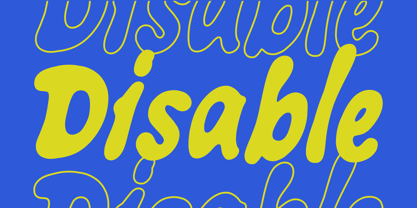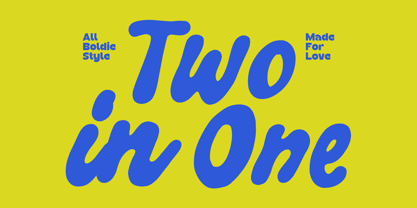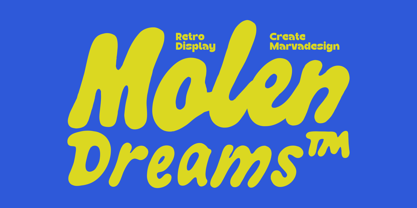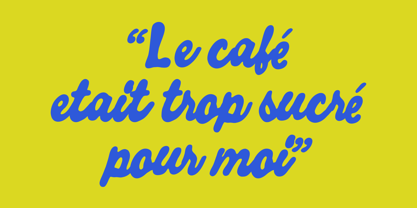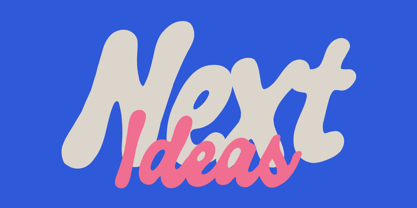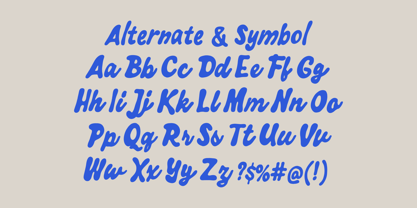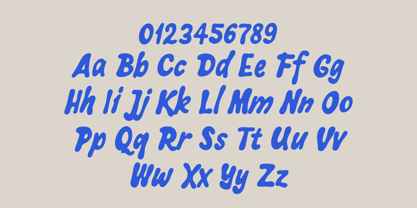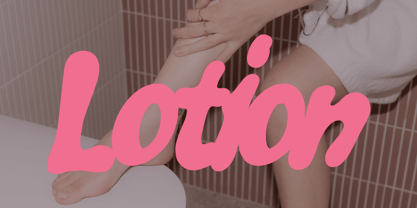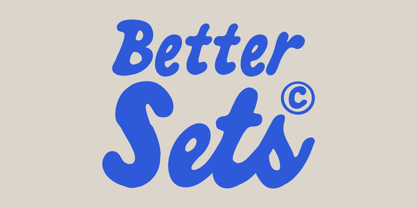
Molen Dream
von Marvadesign
Die Schriftfamilie Molen Dream wurde von Febrie Setiawan entworfen und von Marvadesign veröffentlicht. Molen Dream enthält 1 Stile. Mehr über diese Familie
Molen Dream presents a bold, retro-inspired display typeface with a fun and playful character. Its features include smooth, rounded edges and exaggerated curves, making it highly expressive and suitable for eye-catching design work. Molen Dreams is a typeface that blends vintage flair with modern spirit, particularly with its soft lettering and bubbly shapes. The letterforms are bold and friendly, reminiscent of 70s pop culture and signage.
This font stands out for its versatile weight distribution, offering both a heavy, impactful style and a slightly lighter, more handwritten alternative. Its dynamic shapes make it perfect for branding, packaging, posters, and retro-themed visuals. Overall, this font captures a nostalgic yet trendy aesthetic, ideal for creators seeking bold and optimistic typographic expression.
Designer: Febrie Setiawan
Foundry: Marvadesign